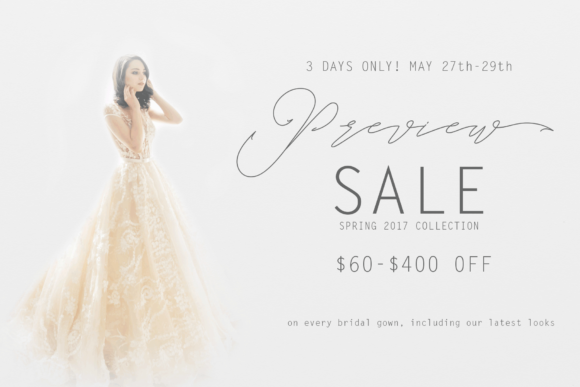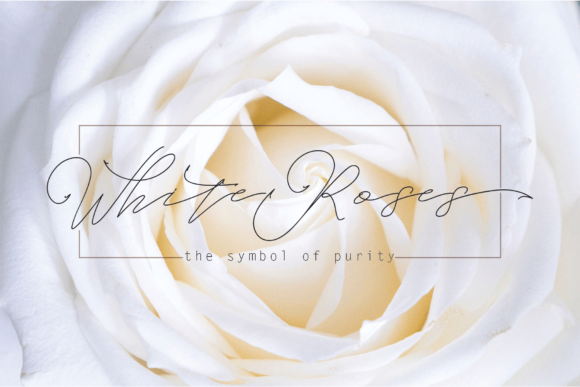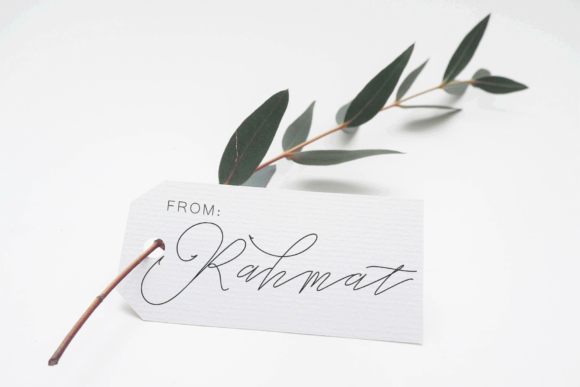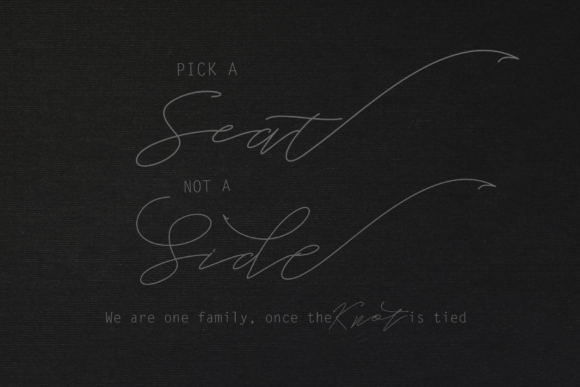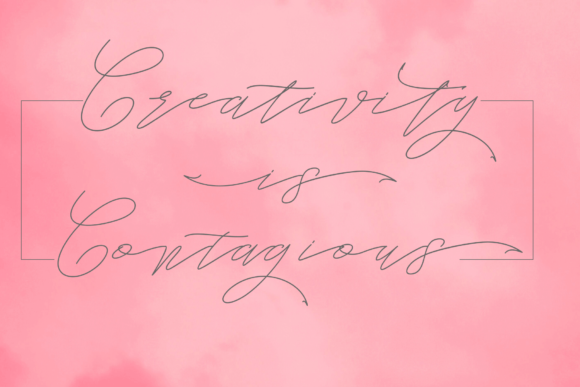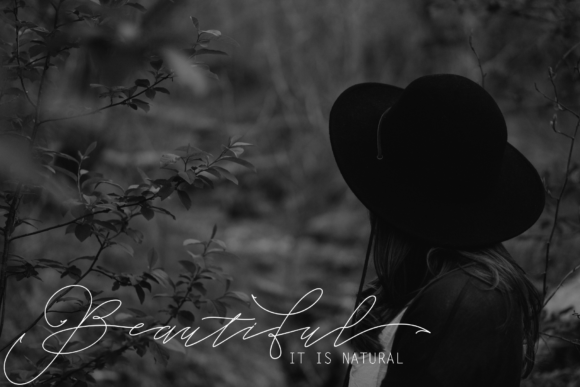
Introduction to Bottle Font
Do you remember that moment when you saw a beautiful hand-written invitation or a custom logo, and you wished you had the skills to create something similar? That’s exactly what I experienced when I stumbled upon the Bottle Font – a modern calligraphy font that has been a game-changer for designers.
Designed by handwriting, Bottle Font offers a unique and natural writing style that can elevate any creative project. From headings and logos to wedding invitations and t-shirts, this versatile font can be used for a wide range of purposes. What sets Bottle Font apart is its high-quality design, which makes it perfect for designers looking for a reliable resource.
Bottle Font
- Unique, hand-drawn design for creative projects
- Comes in 4 different styles: regular, italic, bold, and bold italic
- Includes over 200 glyphs, covering a wide range of languages
Honest Review: Bottle Font
I recently stumbled upon Bottle Font while searching for a unique design resource for a creative project. The first thing that caught my attention was the high quality and intricate details of the font. The transparent background makes it incredibly versatile, allowing for seamless integration with any design.
One of the standout features of Bottle Font is its ability to add a touch of elegance to any text-based element. The font is perfect for headings, titles, and even body text, making it a great addition to any design portfolio or website.
- ✨ High-quality design with intricate details
- ✨ Versatile, with a transparent background
- ✨ Perfect for creative projects, design portfolios, and websites
- ⚠️ Limited to a single font style (no variations or weights)
- ⚠️ May not be suitable for large blocks of text due to its elegant, cursive nature
Overall, I’m impressed with Bottle Font and its potential to elevate any design. While it may have some limitations, its unique design and versatility make it a valuable resource for any designer. With a free download available, it’s definitely worth checking out for your next creative project.
Bottle Font
Bottle Font is a high-quality, free download design resource perfect for creative projects. Its transparent background makes it versatile for use in various design applications.
Bottle Font is ideal for use in branding, packaging design, and social media graphics due to its modern and sleek aesthetic.
Tips for Getting the Most Out of Bottle Font
To get the most out of Bottle Font, experiment with different font sizes, colors, and layering techniques to create visually striking designs.